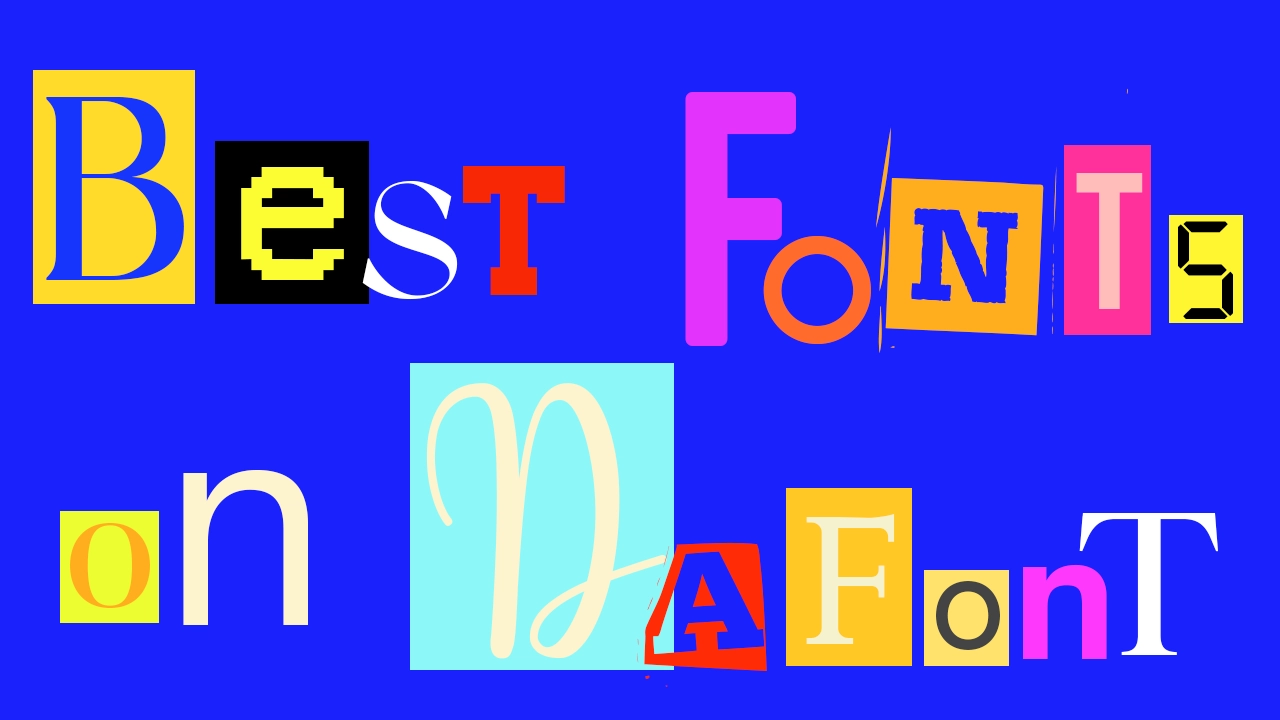
The best fonts on DaFont
No need to scroll the whole site, here's the ultimate selection of the best fonts available on DaFont.
Any designer will know that choosing the right font in a platform like DaFont is one of the most crucial decisions to be made in a project. The right font has an ambitious task on its hands; it must be distinctive and recognisable initially, but also must create familiarity.
Typography also plays a big part in setting the tone for a project and the right font can offer a base to create a piece of distinctive typography of your own. A good font is not too definitive or restrictive; it suggests the groundworks for something that is yet to be created.
DaFont is just one of the many providers of free fonts, but it is possibly the most widely used alternative to Adobe Fonts, and for good reason. Its archive consists of 40,000 different styles. This might sound overwhelming, but no need to panic! We’ve done the sifting for you and created a roundup of all the best fonts on DaFont, for all your designing and typography needs. Just make sure you check the font licensing terms.
01. VCR OSD Mono
VCR OSD Mono is a personal favourite of mine, and with its frequent use in my own video and graphic design work, I can vouch for its versatility. For a digital look that can be made to appear either glitchy or glowing in all sorts of different colours, VCR OSD Mono provides an old-school version of this, reminiscent of the beginning of the digital era, when super 8mm camcorders were a revelation to the art world. This font gives you the perfect base to inject some glitchy and retro pizazz into your project.
02. Bebas
Bebas is a favourite with many designers, myself included. You’ll be pleased to know that it can be used commercially – and often is – so you can feel free to unleash it on all your branding projects. Bebas Neu is another division of Bebas, and also enjoys immense popularity. Bebas Neu is, however, only a slightly more condensed version of the same font, meaning that the use of Bebas covers all bases. Bebas is more flexible as the same condensed effect that Bebas Neu achieves could essentially be created in Photoshop with only a few letter spacing adjustments anyway.
03. University
If you need to find a font that looks like the lettering on the back of the varsity jacket, DaFont provides a surprising number of options. University is by far the best of the pick; there are many snazzier versions with more flourishes, but University is our favourite.
04. Drunken Hour
Drunken Hour is slightly more ‘out there’ in the world of typography, but is of a style currently gaining a lot of traction on social media. A template for this font continues to gain viral circulation on both Reels and TikTok, so it’s perfect if you want to make something of your own within this trend. For the Mean Girls Burn Book meets an old-school scrapbook meets a magazine-cut-out-anonymous-message look – Drunken Hour covers all bases.
05. Butler
What would a more feminine Times New Roman look like? Butler shows us with its traditional lettering with an extra dose of elegance. Butler is distinctive enough to be used in large typography, and stripped back and classy enough to work well as standard body text with its own stylised touch.
06. Open 24 Display
Another digitally inspired font, Open 24 Display echoes the devices created near the tail end of the technological revolution in the early 2000s, when digital devices were becoming the norm and text such as this was widely seen. While VCR OSD Mono (above) gives us a font reminiscent of a ‘90s camcorder, Open 24 Display is perfect for achieving something similar to the design of an early 2000s pocket digital camera.
07. Coolvetica
Coolvetica is a popular choice for the loyal Helvetica enthusiasts out there who want to stay true to their sans serif ways while spicing it up with an extra roundedness. The essentials of Helvetica remain intact, but a distinctive extra roundedness to the letters stands out and a more compressed and bolder lettering shines through.
08. Garet
Garet offers a light typeface. It's not as flexible as some of the others on this list, and you’ll either love it or hate it. Perfect for website copy or stripped back body text, Garet offers something beautiful with enough individuality to finish off the right project.
09. Agency
Agency has a hint of retro branding, and looks as though it may have been the favourite font used for the basework design of ‘80s posters and packaging. It’s important to note that punctuation and numbers are not included in this font pack, so it is best suited for creating impact with punchy titles and headings.
10. Apollo
Apollo offers a fully stocked 1930s-themed typeface. Completely equipped with its own flourishes that define its post-art-deco style, its creation is still not so finite that its impossible to add your own touch. It comes with both uppercase and lowercase lettering as well as a full set of matching numbers and punctuation; to completely equip you to create 1930s-inspired typography.